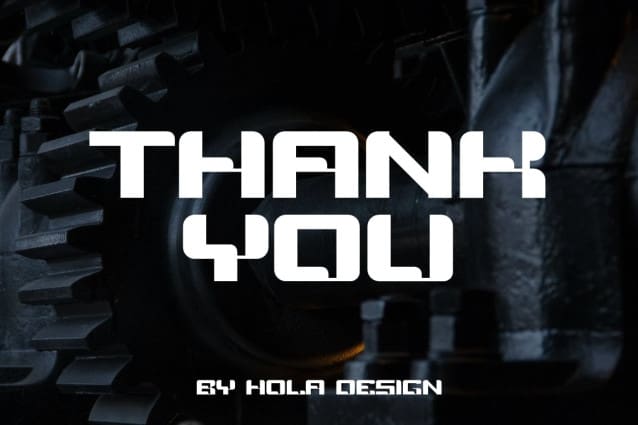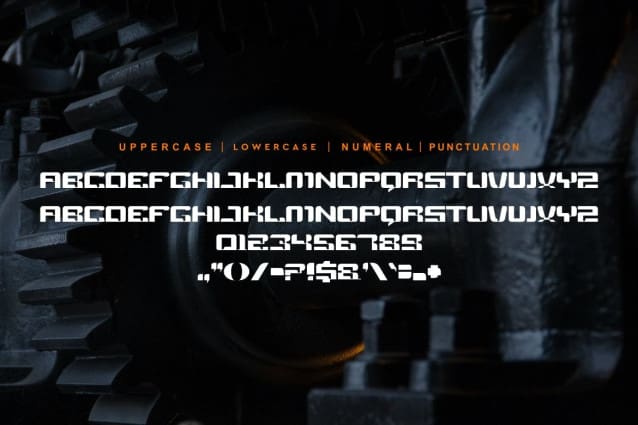
Demon Space Font
Demon Space Font is unique. Ready to use for your designs, such as labeling, movie scene, poster, movie title, concerts, album covers, logos and much more